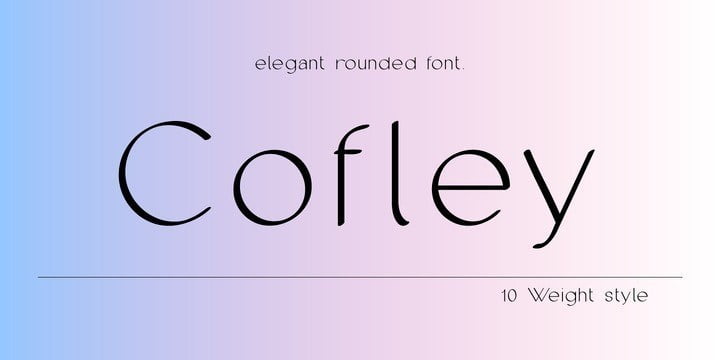
Cofley Sans Serif Font
Cofley Sans Font is a unique sans serif font, designed to be combined with various fonts and can be applied to the design or branding of a project. This font consists of uppercase, lowercase, ligature, punctuation, symbol, mark, number, and multi-language support.
Cofley Sans Font is available in 10 styles: Thin, ExtraLight, Ultralight, Light, Book, Regular, Medium, SemiBold, Black and Bold. This font is good for various graphic design needs, such as, magazines, posters, logos, branding, UI / UX, etc.
Cofley Sans Serif Font Family